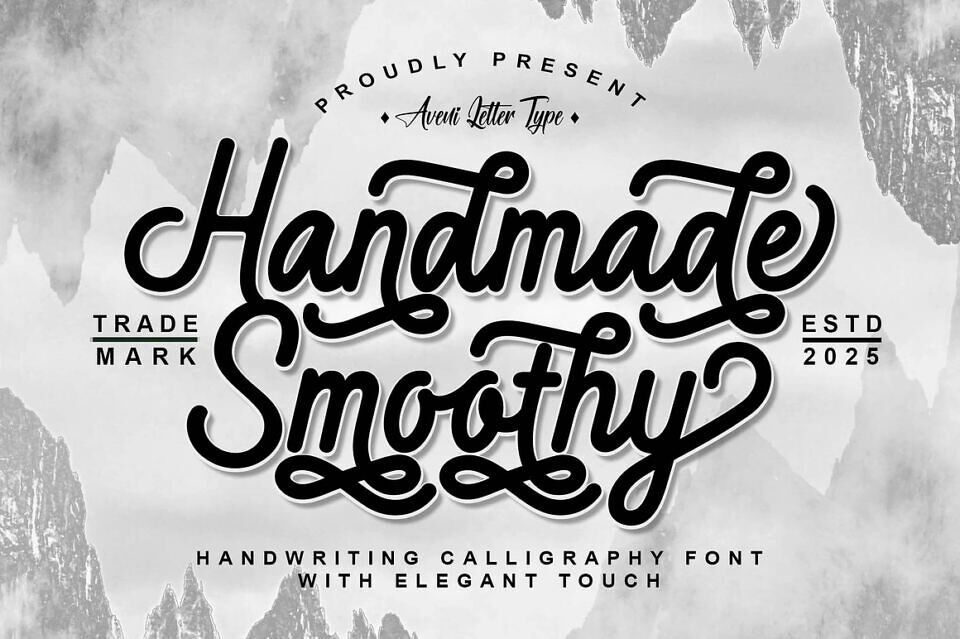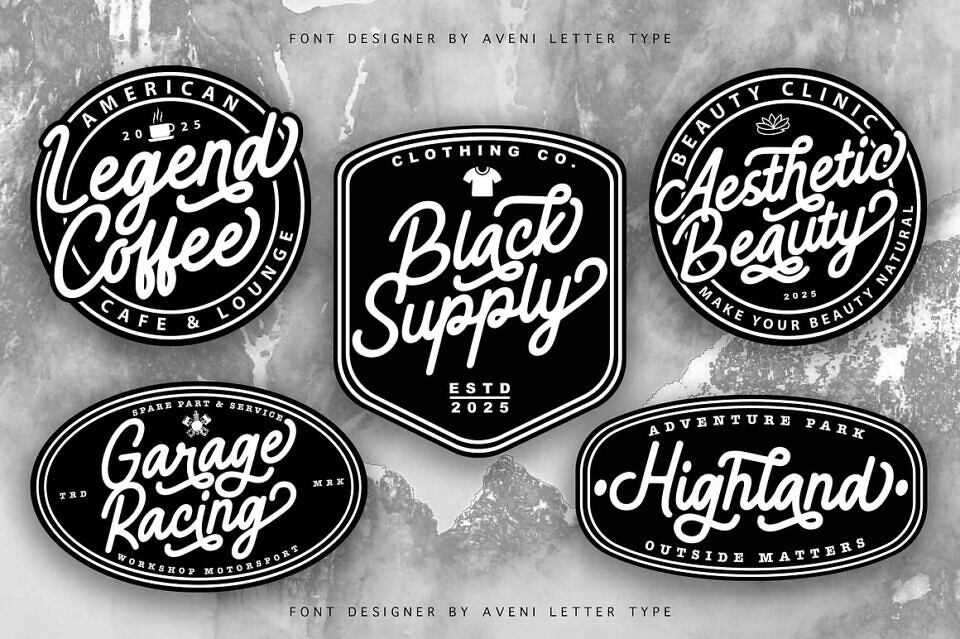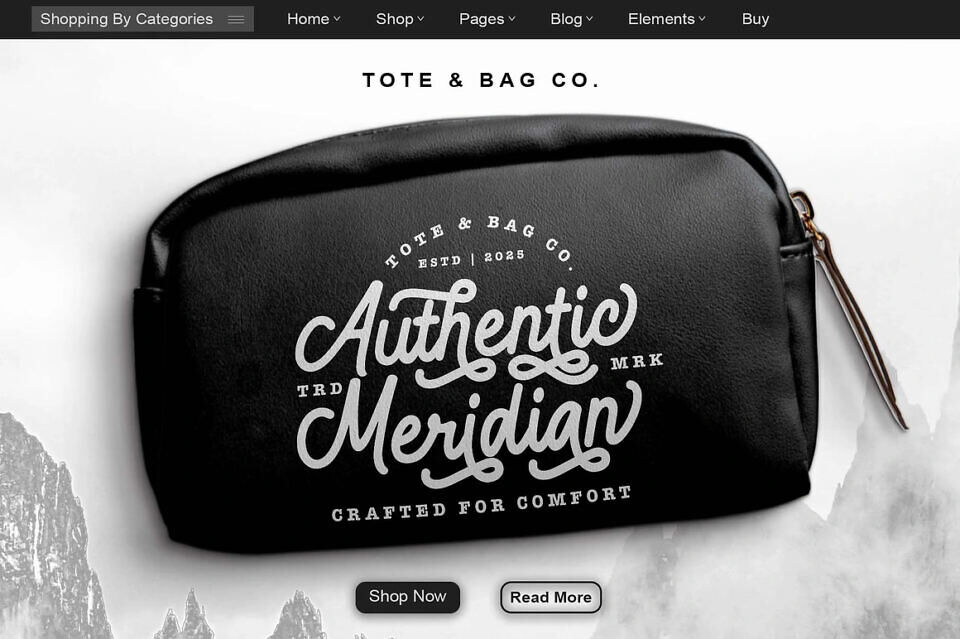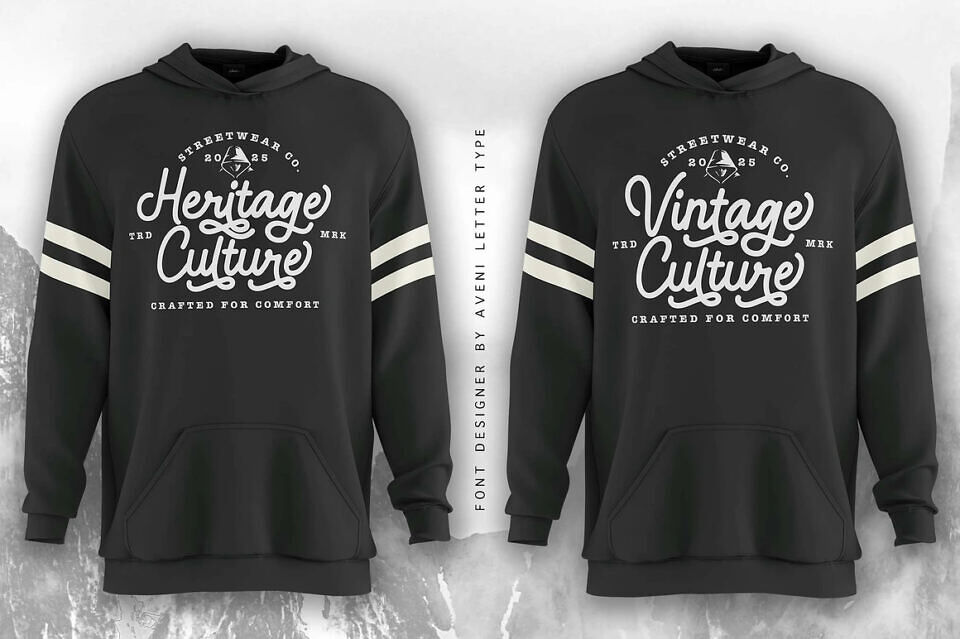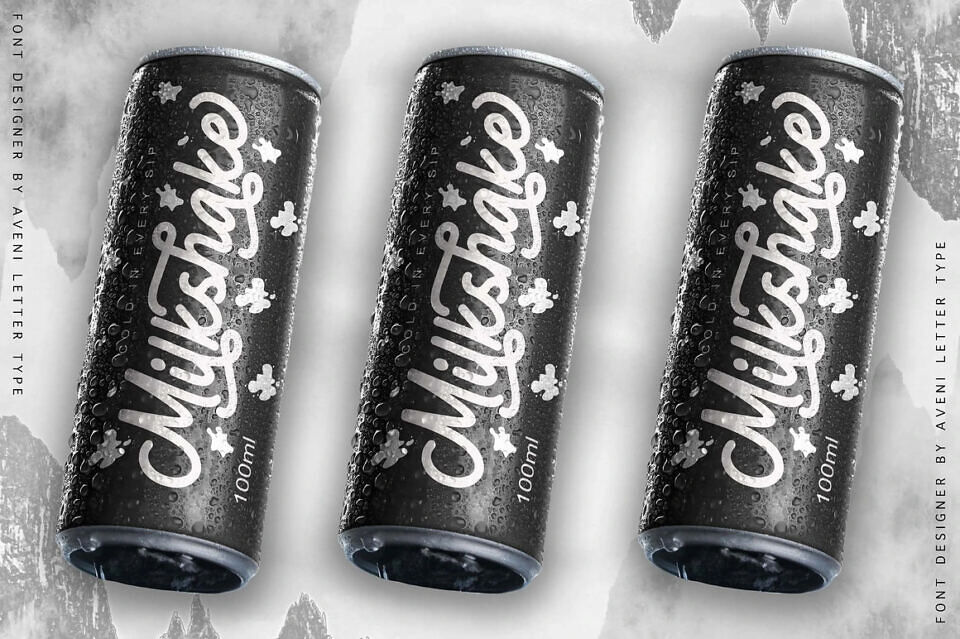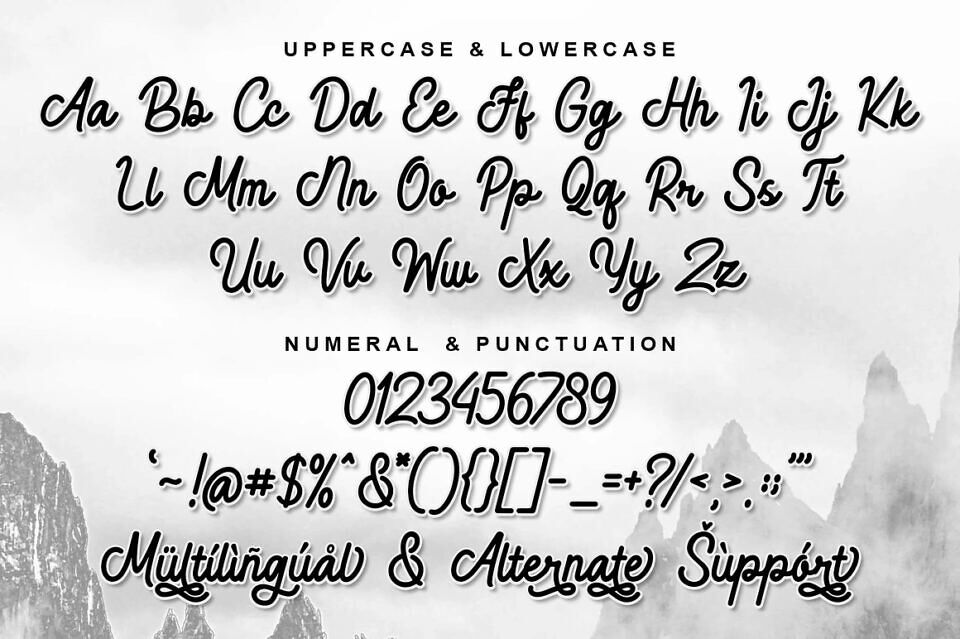
Handmade Smoothy is a handwritten calligraphy font designed to exude luxury and elegance. Featuring precise kerning, stylish ligatures, and versatile alternates, this font ensures refined results for any project.
Perfect for logos, company branding, product packaging, apparel designs, and social media graphics, Handmade Smoothy adds sophistication and charm to both personal and professional works. Its modern, Instagram-ready appeal makes it a favorite choice for creatives seeking a graceful yet impactful typeface.